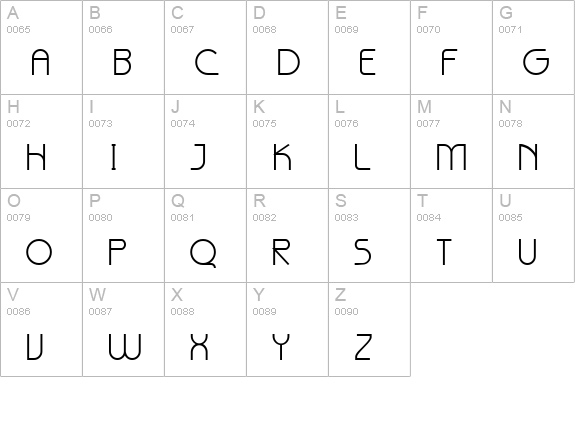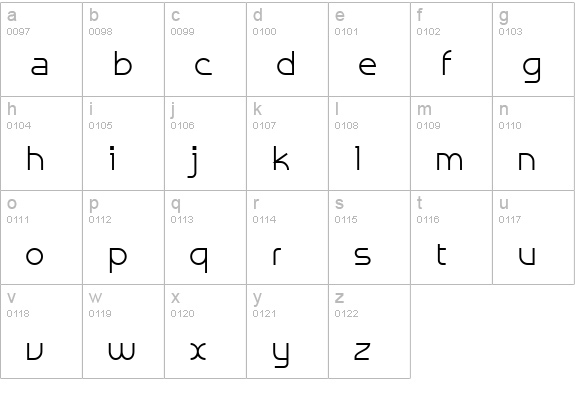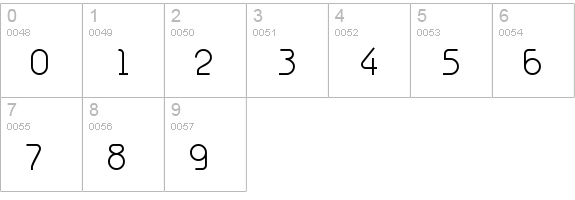
Galexica Plain Font Details
Galexica Plain is a modern and versatile font that effortlessly combines elegance with simplicity. Its clean and straightforward design makes it perfect for a wide range of projects, from professional presentations to creative designs. With its balanced letterforms and consistent spacing, Galexica Plain offers legibility and readability without compromising on style. This font exudes a sense of sophistication, making it suitable for both print and digital use. It is ideal for branding, logos, headlines, and body text, adding a touch of class to any project. The timeless appeal of Galexica Plain ensures that it will remain relevant and stylish for years to come. One of the most remarkable aspects of Galexica Plain is that it is available for free. Yes, you heard it right! This amazing font can be freely downloaded from FontsMarket.com, allowing you to enhance your designs without any additional cost. Whether you are a professional designer, a student, or simply someone who appreciates high-quality typography, Galexica Plain is a must-have addition to your font collection. Don't miss out on this opportunity to elevate your designs with Galexica Plain. Download it for free today at FontsMarket.com and let your creativity soar to new heights.